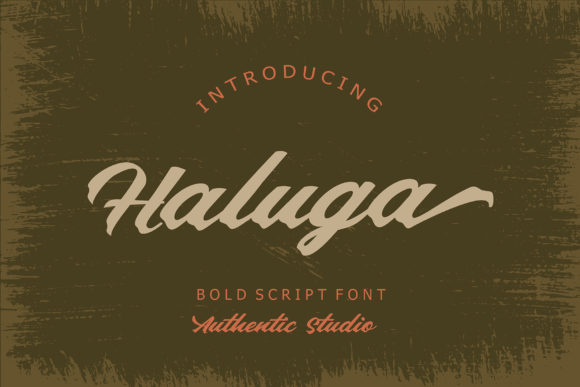
Introducing Haluga Font, the script font that will add an irresistible splash of style to your designs. Its bold, hand-lettered typeface oozes authenticity, making it perfect for creating logos and formal designs with flair. Whether it's invitations, labels, books, or packaging, Haluga's charm will elevate your creations.
Imagine your logo standing out with Haluga's unique character, grabbing attention and leaving a lasting impression. Its captivating curves and flourishes add an artistic touch to your designs, making them not just visually appealing but also unforgettable.
With Haluga, you'll find endless opportunities to unleash your creativity. Its versatility extends to fashion, makeup, stationery, and much more. Let Haluga's elegance adorn your wedding cards, giving your special day a touch of timeless charm.